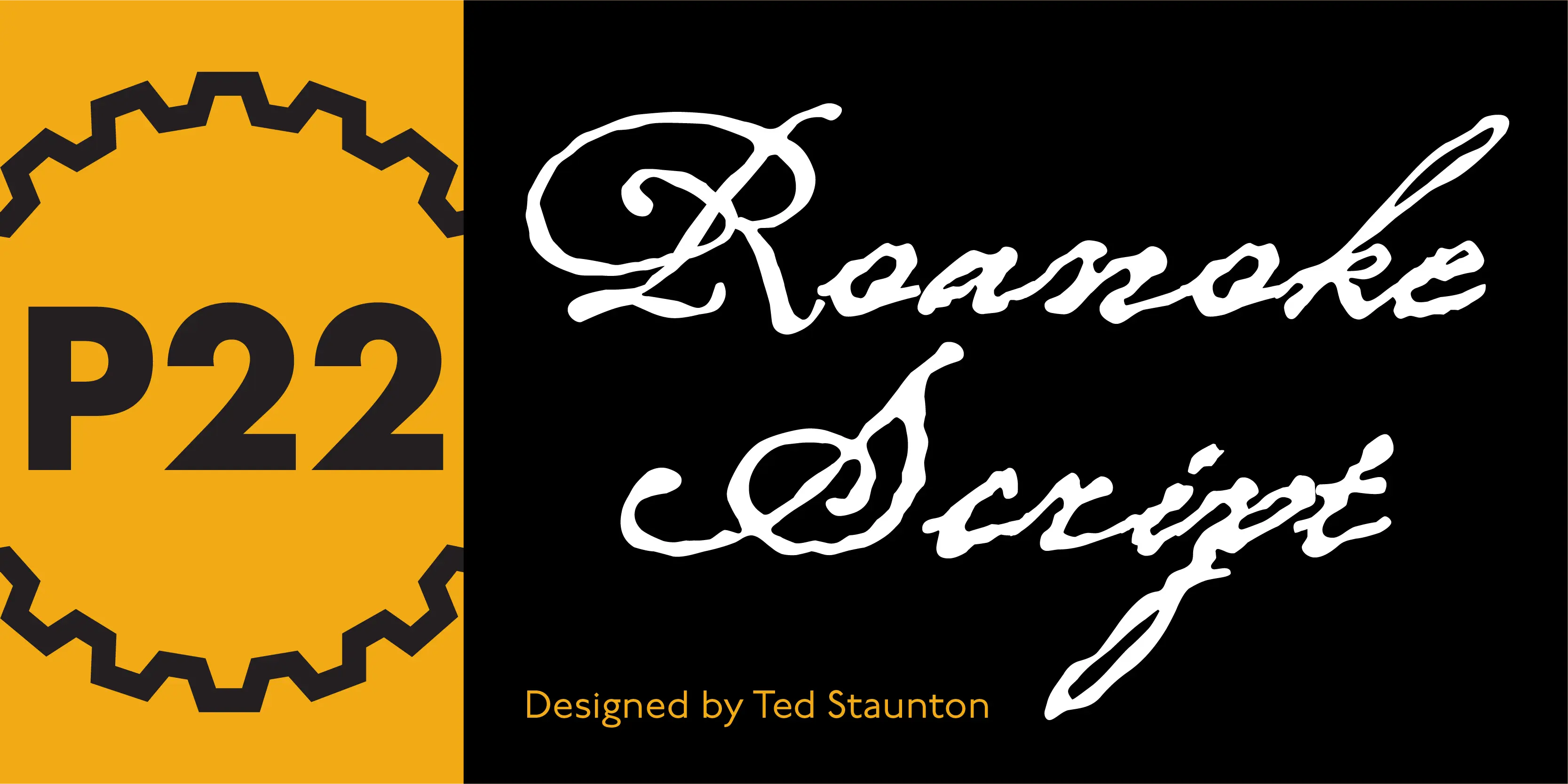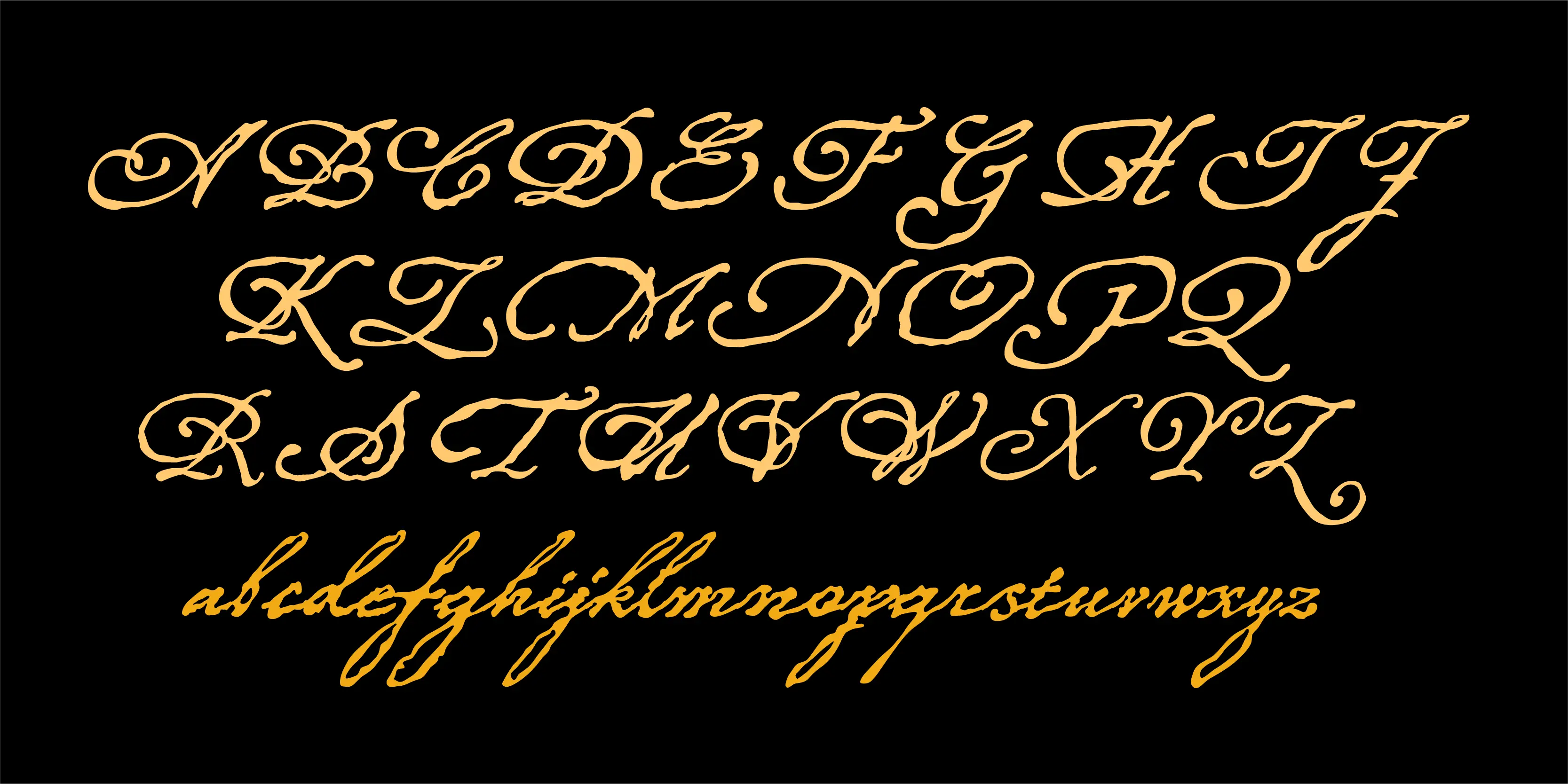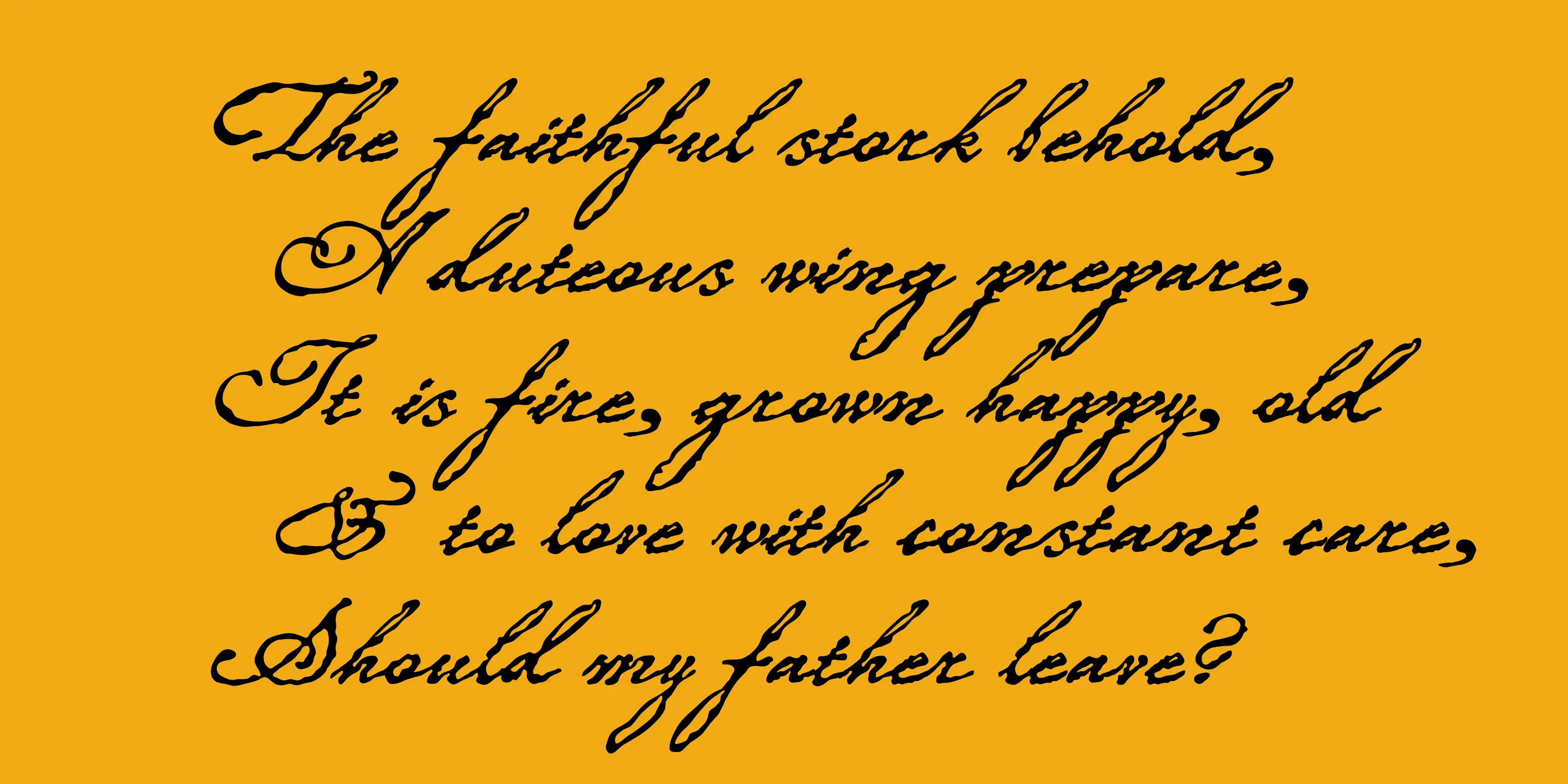
Roanoke Script Fonts
Roanoke Script
Roanoke Script is a Script-written script inspired by 18th century forms. The visual effect is of a steel nib pen writing on uncalendered paper. Ideal for a few words in display sizes. Similar in style to Cezanne and Dearest.